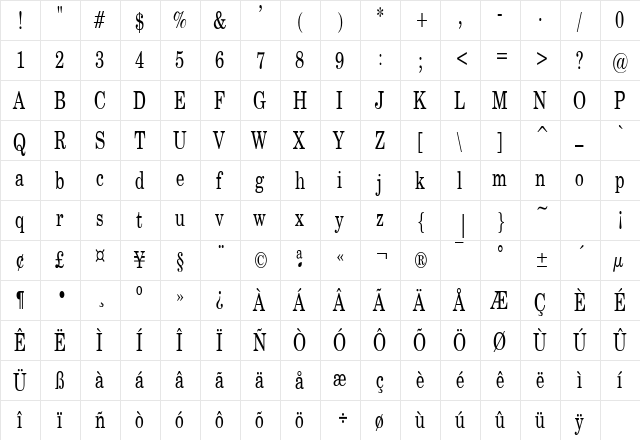
CenturySWCondensed Regular
Design Context for CenturySWCondensed Typeface
CenturySWCondensed is a composed and adaptable typeface that performs quietly and consistently across a wide range of design contexts. The condensed width makes it efficient for tight spaces without sacrificing legibility.